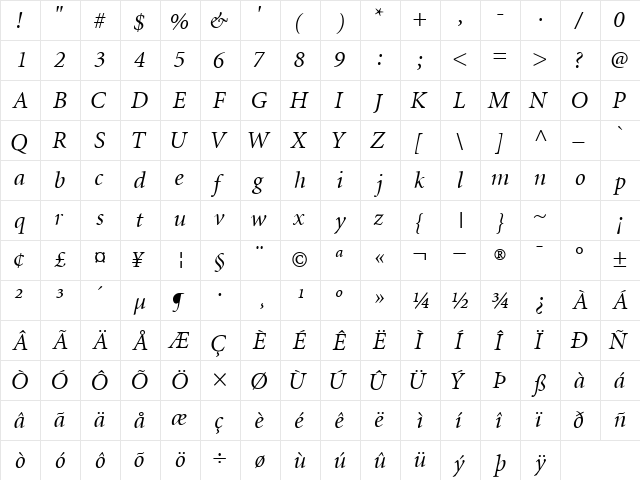
AtlantixSSK Italic
Design Context for AtlantixSSK Typeface
AtlantixSSK takes a measured approach to typography — its balanced proportions and neutral character make it a reliable workhorse for both digital and print work. Its italic angle brings a sense of urgency and motion to the letterforms.
Pro Tip: Try AtlantixSSK for annotation and caption copy alongside an upright companion — the contrast in angle creates a dynamic but ordered typographic system.